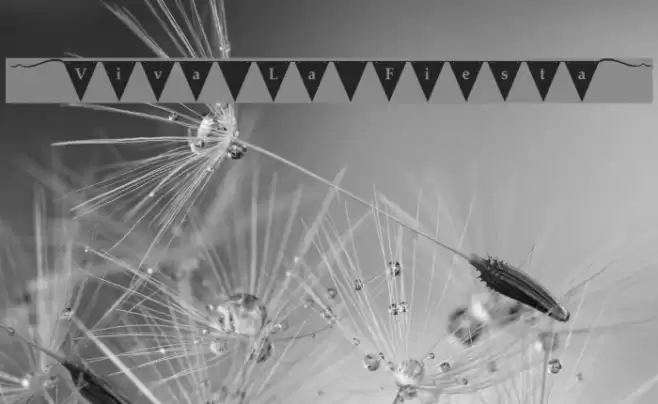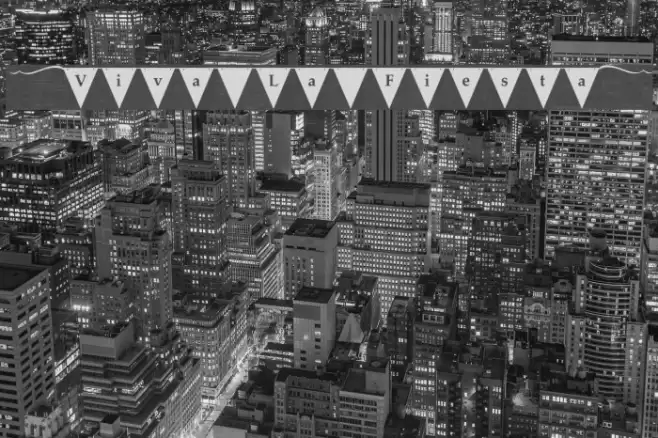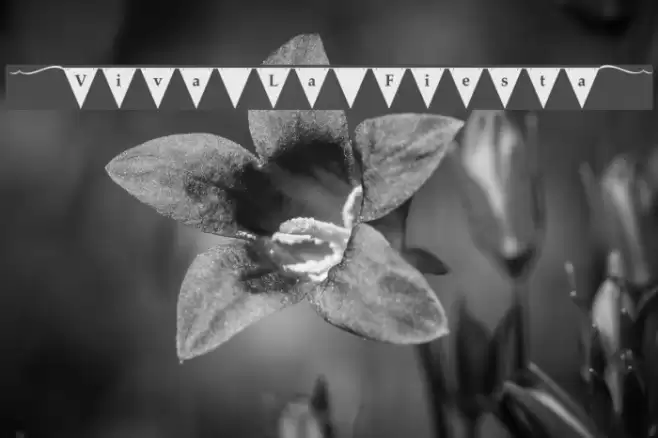
[Viva La Fiesta] Font
✎ Decorative
This font features a bold and festive style, with each character displayed on a triangular pennant, reminiscent of celebratory banners. The uppercase and lowercase letters are distinct, with a playful yet clear design that ensures readability. The numbers and special characters maintain the same festive theme, making them suitable for various decorative purposes. The font's unique presentation on pennants adds a dynamic and lively touch, perfect for events and celebrations. Its boldness ensures visibility from a distance, while the triangular backdrop adds a layer of visual interest.
| Use Case | Headlines, Logos, Event materials |
| Proposed Projects | Ideal for party invitations, event banners, festive posters, and celebratory merchandise. |